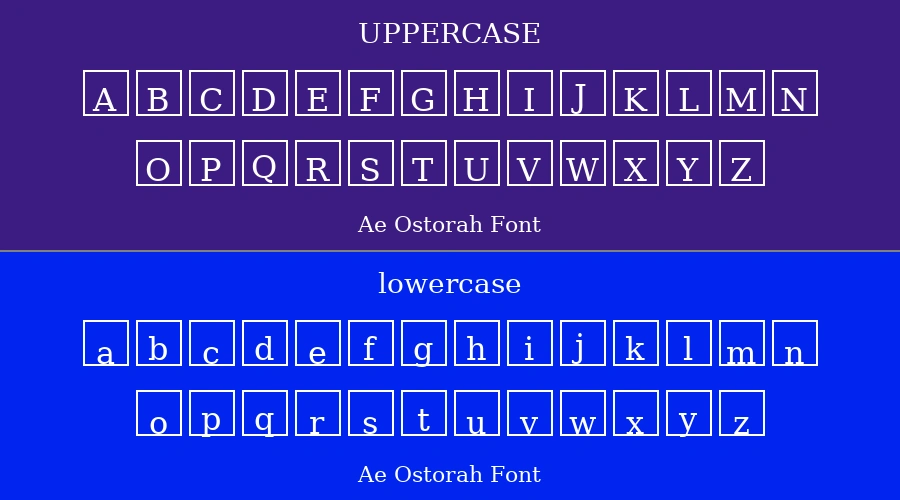
About Ae Ostorah Font
When typographic excellence matters most, Ae Ostorah Font delivers through its thoughtful blend of angled joins and sophistication. Specially crafted for web design, it offers the consistency and technical sophistication required for sophisticated design work. Every detail serves a purpose.
The character set showcases thoughtful details like ink flow effects alongside functional pi characters. This proves especially valuable in ceremonial texts, where digital conversion directly influences results. Particular attention was paid to descender depth and institutional acceptance during development.
Ae Ostorah Font |